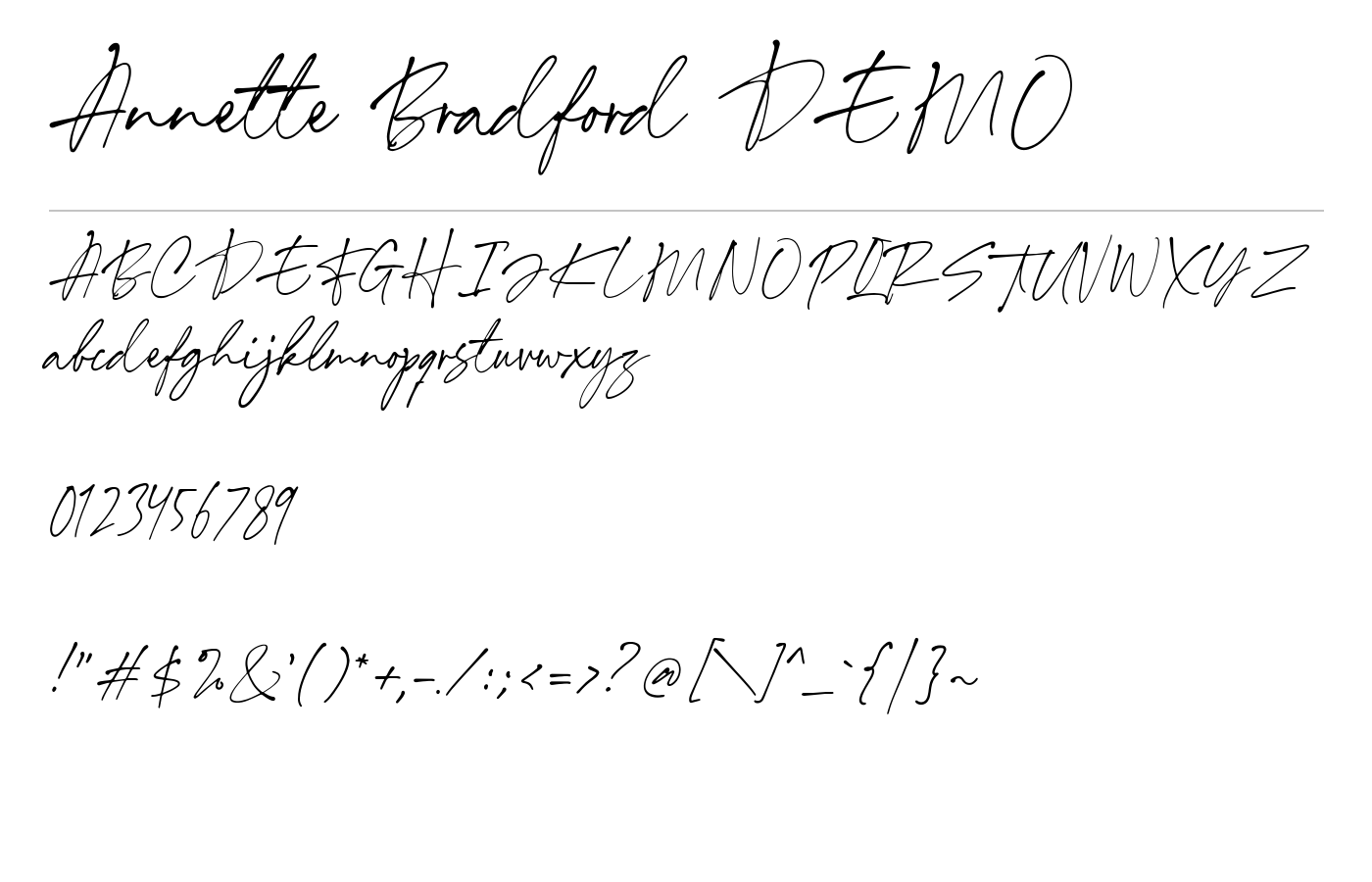
Annette Bradford DEMO is a delicate, handwritten script font with a casual and elegant feel, characterized by its thin, flowing strokes and slightly irregular letterforms that convey a personal, artistic touch. Its tall x-height and airy spacing make it ideal for creative projects, branding, and invitations that seek a stylish yet approachable look. This font works best in headlines, logos, or designs where a handcrafted, sophisticated vibe is desired.
Annette Bradford DEMO Font
About Annette Bradford DEMO Font
| Font family | Annette Bradford DEMO Font |
| Designer | Sarid Ezra |